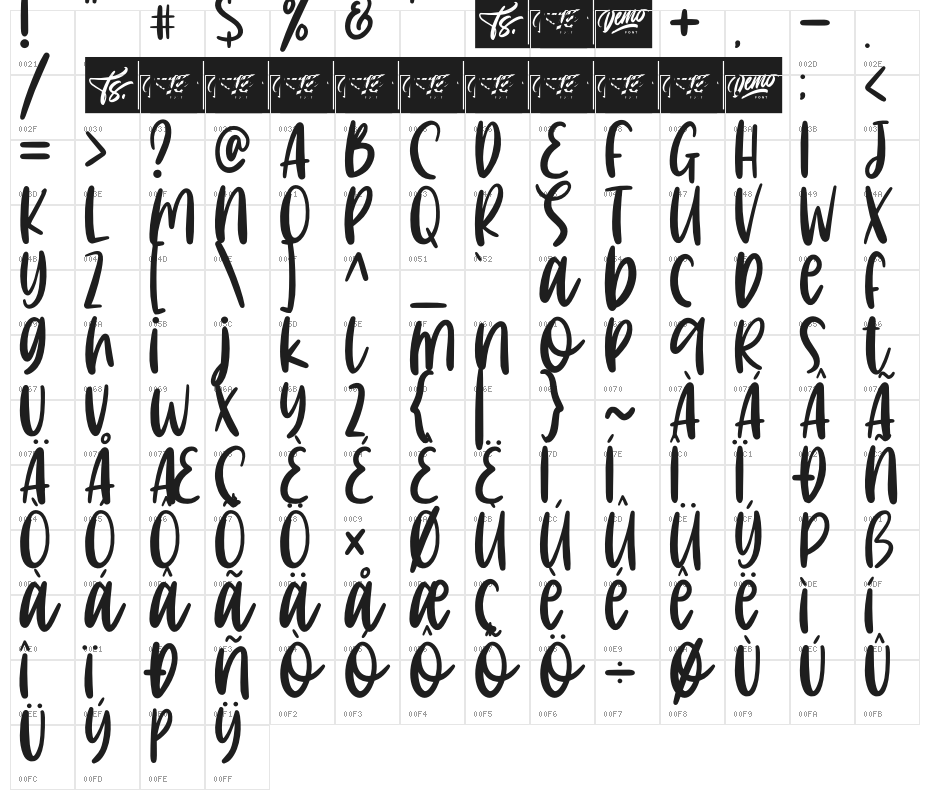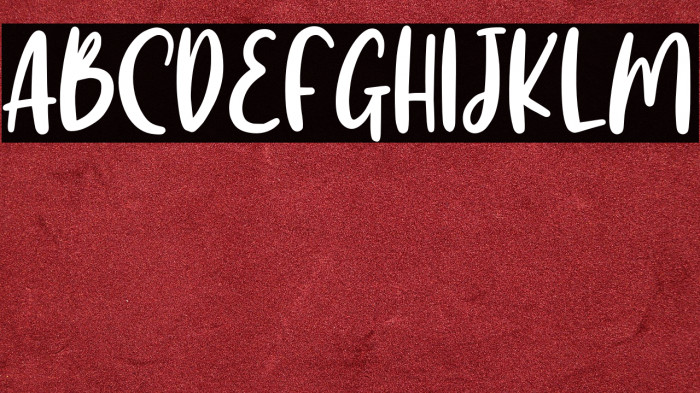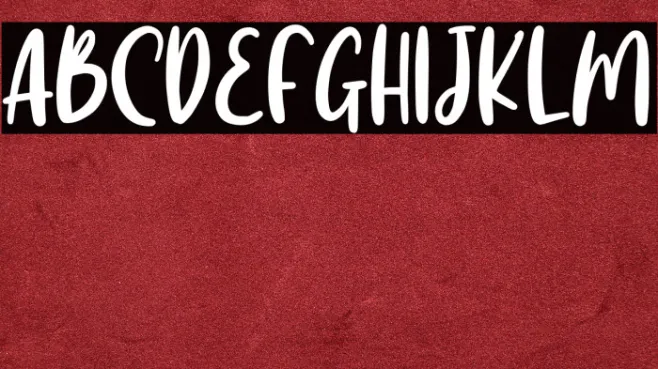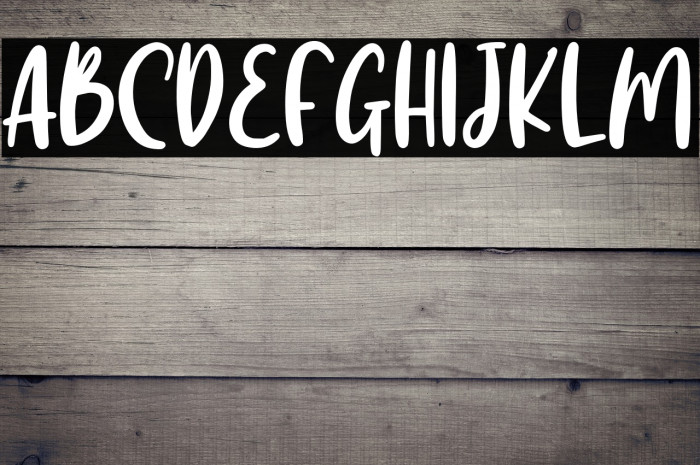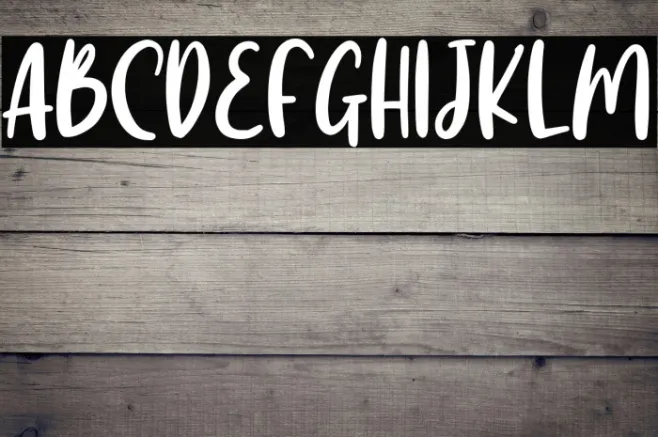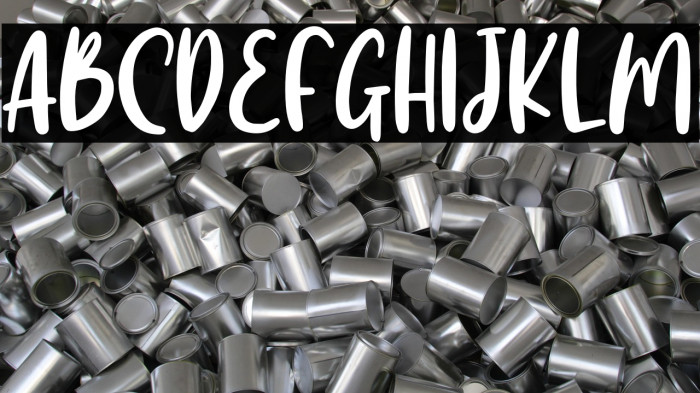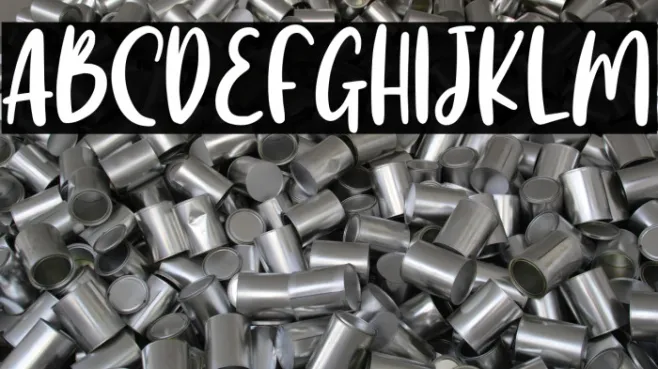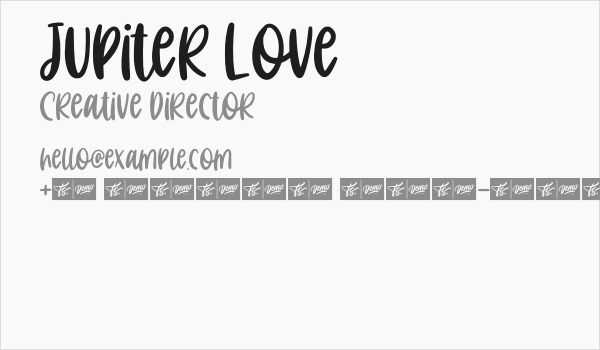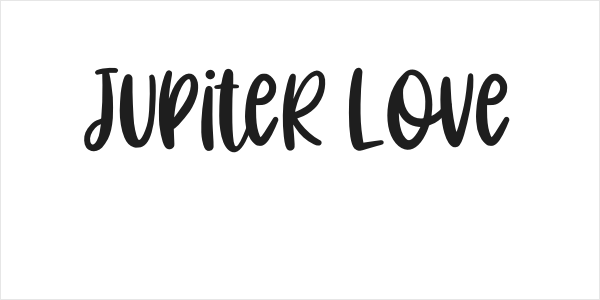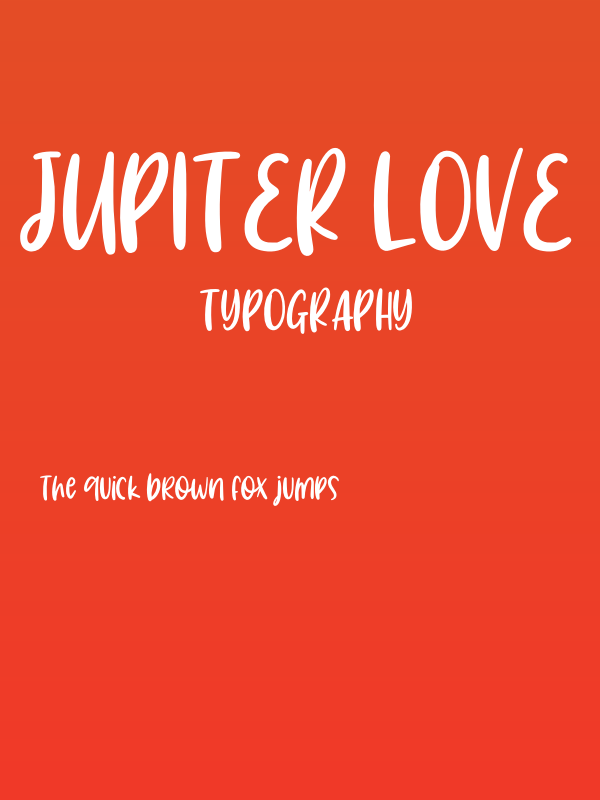
Jupiter Love Font
Jupiter Love Description
This font features a bold and expressive handwritten style, characterized by its fluid and dynamic strokes. The letters are slightly slanted, giving a sense of motion and energy. The uppercase and lowercase letters maintain a consistent style, with rounded edges and a playful, casual feel. The numbers and special characters are designed to match the overall aesthetic, ensuring a cohesive look across all text elements. This font is perfect for projects that require a personal touch or a creative flair.
| Proposed Projects | Ideal for greeting cards, invitations, branding, social media graphics, and creative posters. |